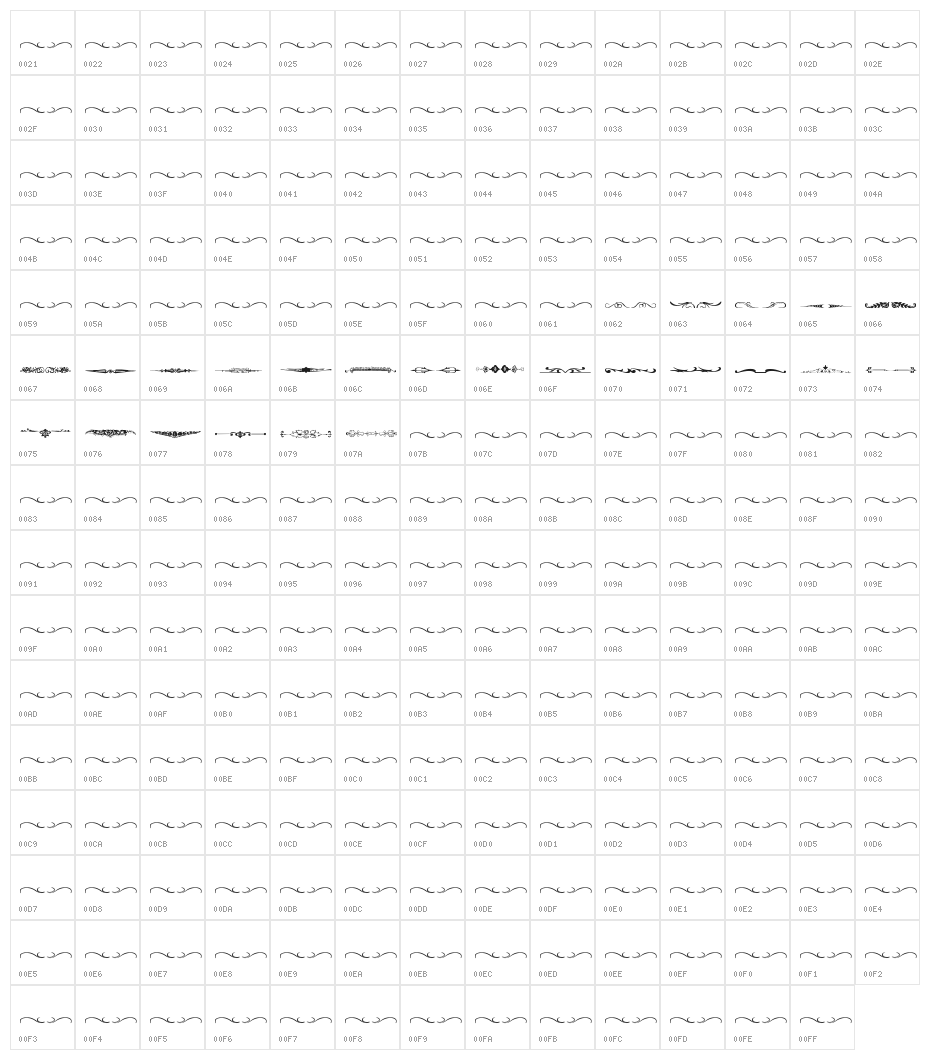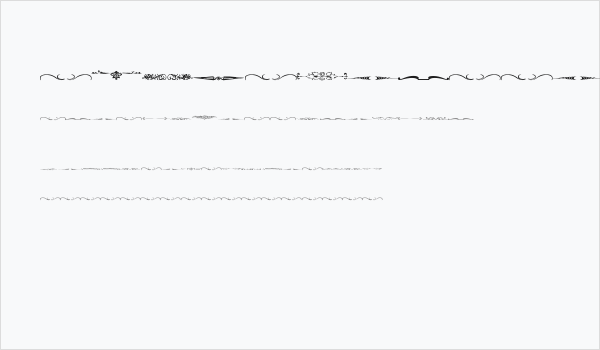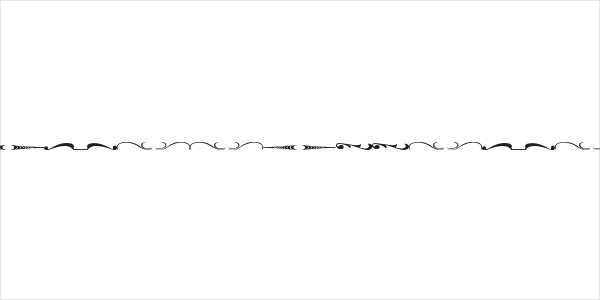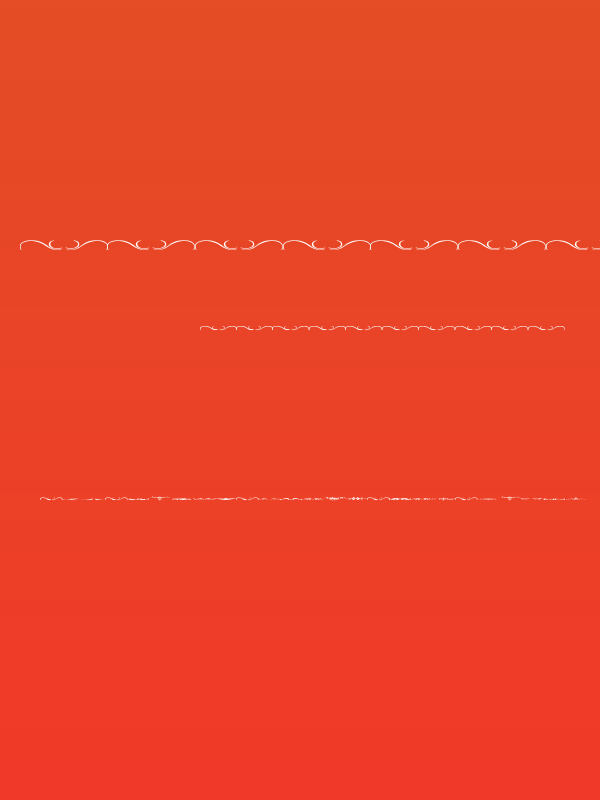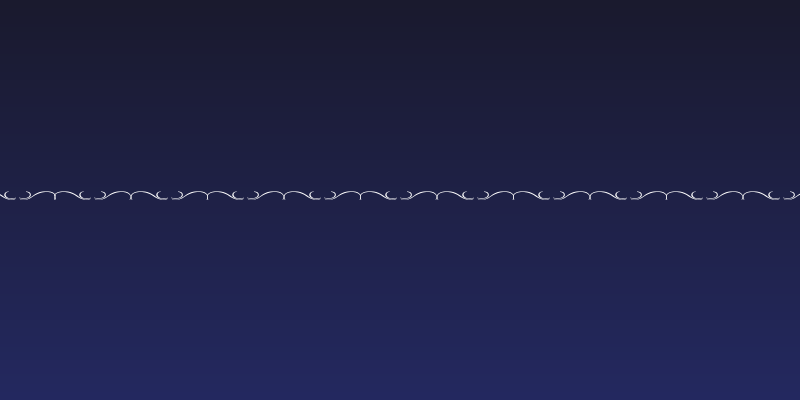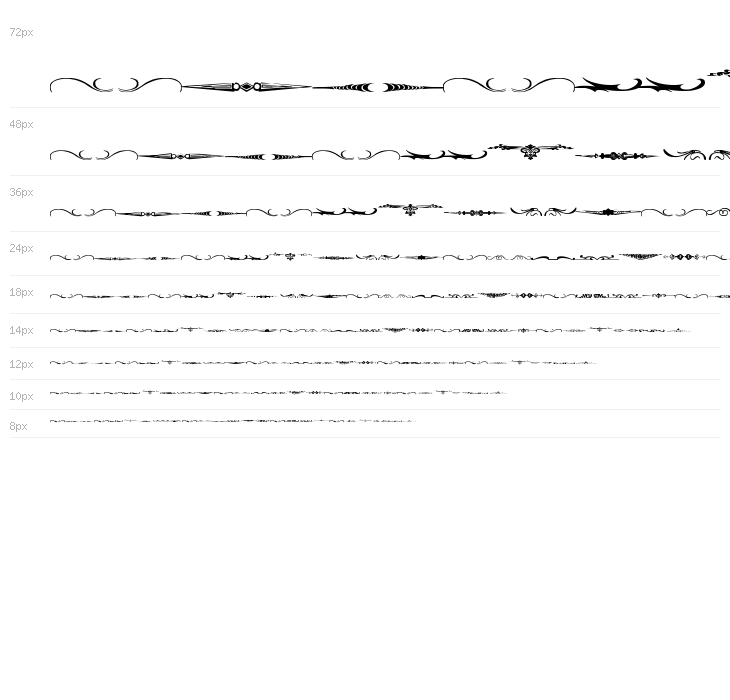
Sughayer Separates 10 Font
Sughayer Separates 10 Description
A decorative set of ornate, swirling line separators with intricate flourishes and embellishments, designed to be used as visual dividers rather than as a traditional text font.
| Overall Style | Decorative, Vintage |
| Use Case | Dividers, Borders, Decorative accents |
| Proposed Projects | Invitations, certificates, wedding stationery, vintage-style menus, decorative borders, and editorial design accents. |